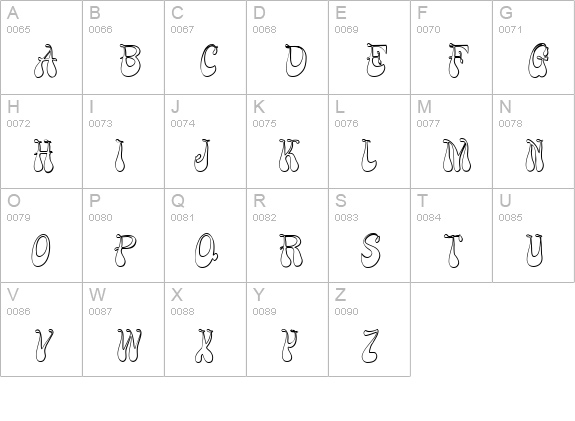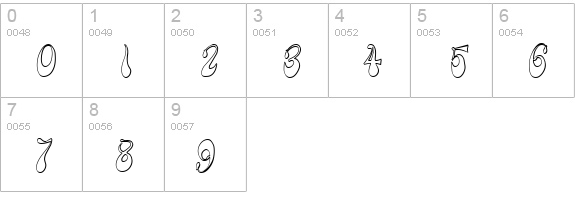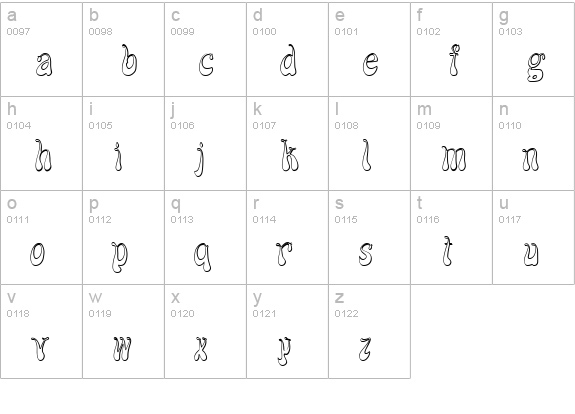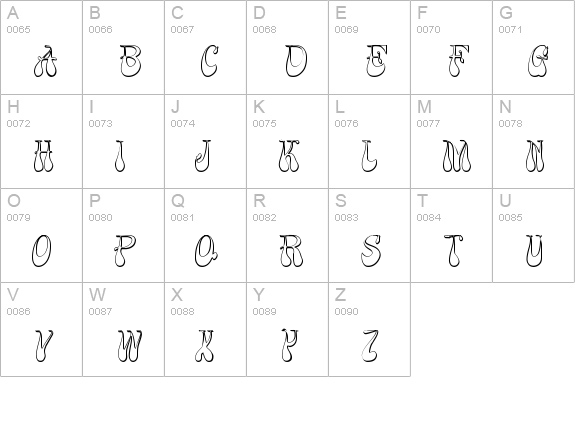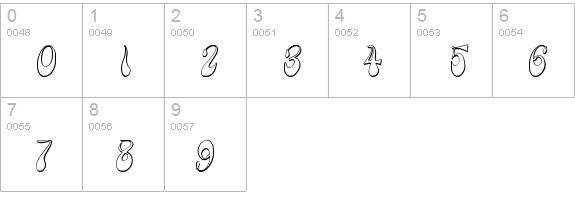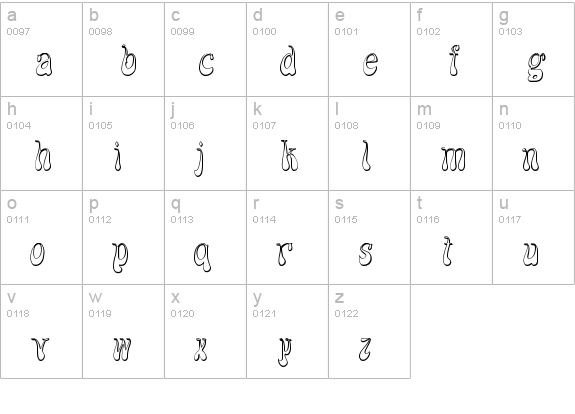
FZ JAZZY 17 3D ITALIC Font Details
FZ JAZZY 17 3D ITALIC is a distinctive, italic variant in the FZ typeface family \xE2\x80\x94 well suited to design and typography projects.
FZ JAZZY 17 3D ITALIC font is a stylish and modern typeface that brings a touch of sophistication to your designs. With its bold and dynamic 3D effect, this font is perfect for making a statement and catching the eye of your audience. What sets FZ JAZZY 17 3D ITALIC font apart is its unique italicized design, adding a sense of elegance and flair to any project. Whether you're creating posters, logos, or social media graphics, this font will elevate your work to the next level. Best of all, FZ JAZZY 17 3D ITALIC font is available for free download at FontsMarket.com. This means you can easily access and use this stunning font in your projects without any cost. Don't miss out on the opportunity to add FZ JAZZY 17 3D ITALIC font to your font collection and take your designs to new heights.